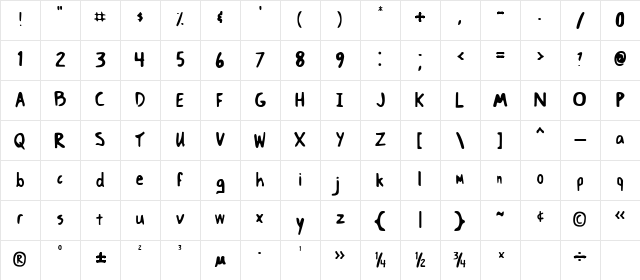
TMacLeod Regular Free Font
TMacLeod Regular
Designer: Tristan MacLeod
Design Context for TMacLeod
TMacLeod is a composed and adaptable typeface that performs quietly and consistently across a wide range of design contexts.